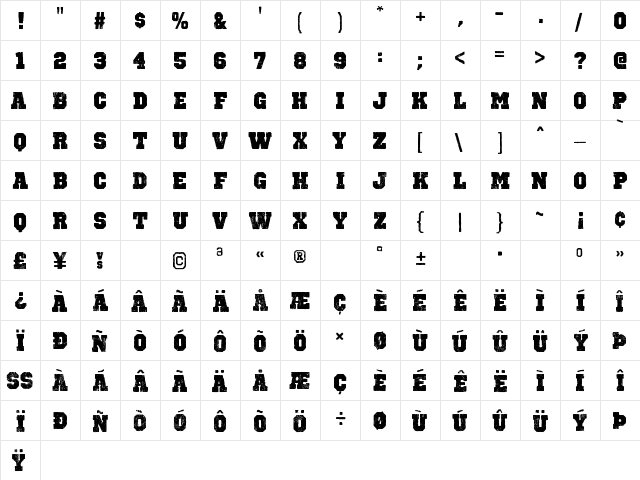
Octin Vintage B Black
Design Context for Octin Vintage Typeface
Octin Vintage has the warm character of retro typography — evoking diners, record sleeves, and the golden age of print advertising.
Perfect for vintage-inspired branding, retro packaging, nostalgia campaigns, and period-accurate editorial design.
Font Pairing: Combine Octin Vintage with a simple slab or neutral sans — period-accurate companions reinforce the vintage feel without competing for attention.
Pro Tip: Use Octin Vintage for headlines and pull quotes rather than body copy — its personality is best appreciated in short, focused bursts.